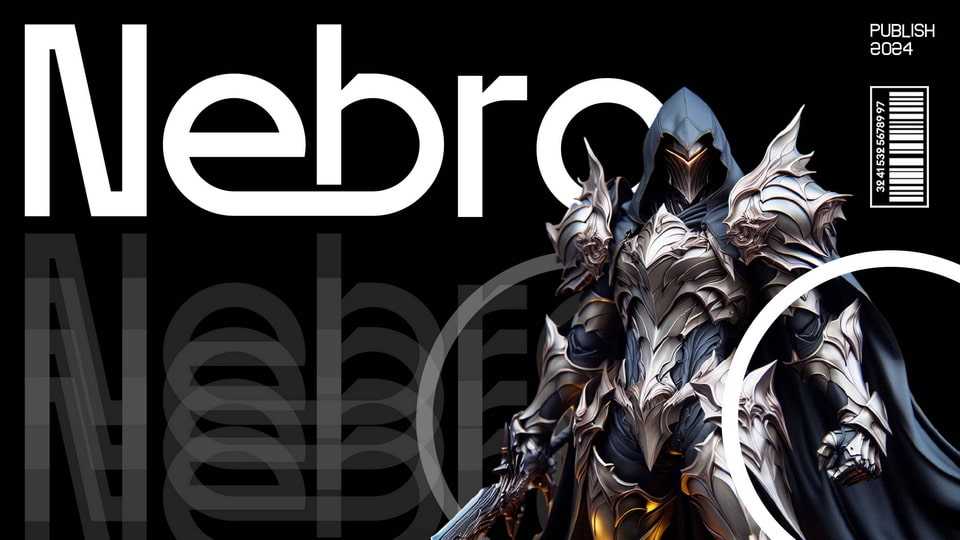
Download Nebro font, a modern, futuristic typeface designed to make a bold statement. Versatile and impactful, Nebro brings sophistication and innovation to any project.
Designer: Kangfont Studio